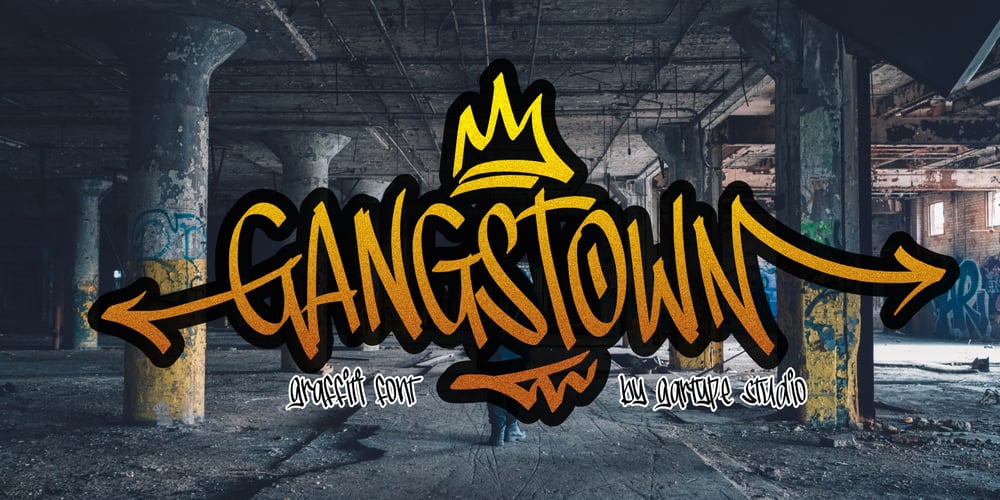
Gangstown GT Font Family was designed by Gumilang Anggara Ruslan and published by Gartype Studio. Gangstown GT contains 3 styles and family package options. Inspired by quick handwritten graffiti tagging around city, we are make this graffiti typeface called Gangstown. This font comes with contextual and stylistic alternates that way easy to use, multilingual glyphs, and swashes too. Create your uniquely mix combination with swashes and alternates.Your project will look cool while using this for project like tagging, product package, ads, title, headlines, logo, stickers, apparel, etc.